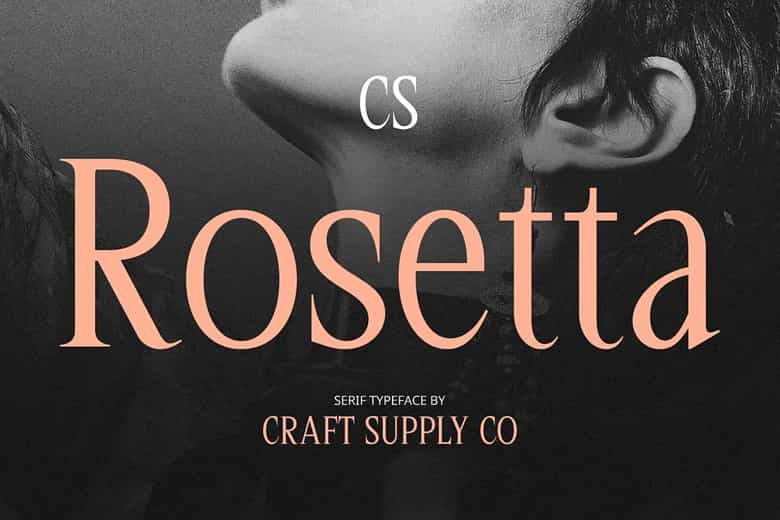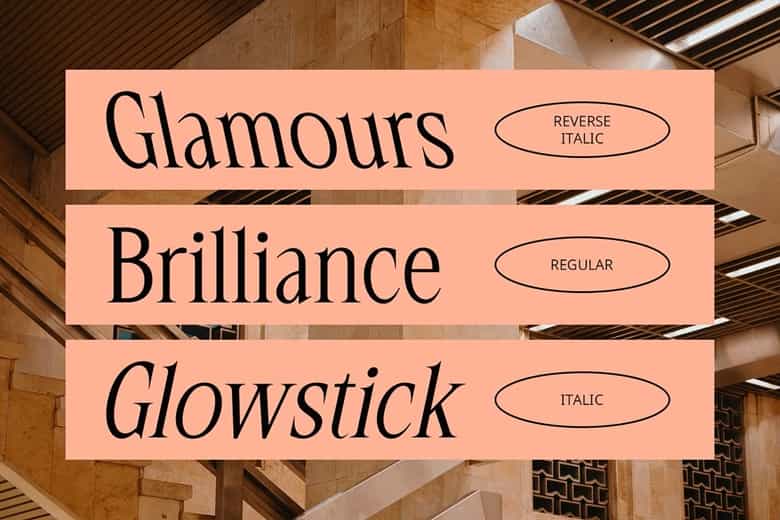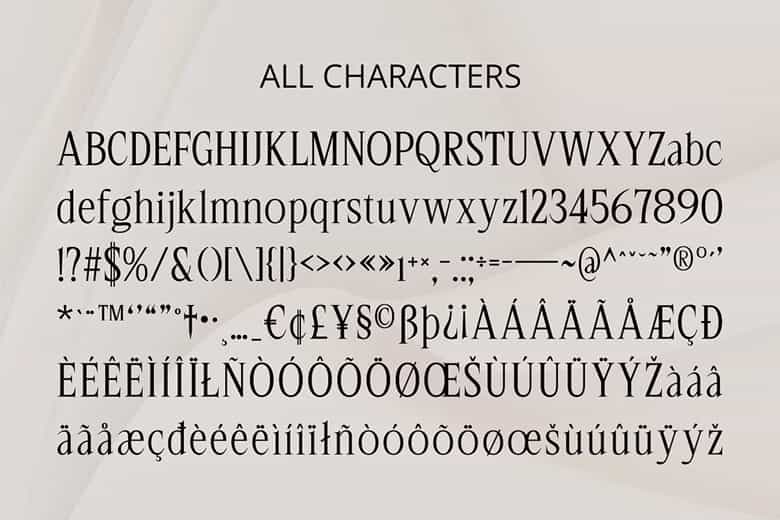
CS Rosetta provides modern serif font that uphold traditional style through its contemporary design approach. The typographic characters with elongated serifs create both traditional and contemporary appeal for designers who desire situational duality. The CS Rosetta font finds its ideal applications across editorial designs, fashion publications, premium branding, packaging materials and diverse additional uses.